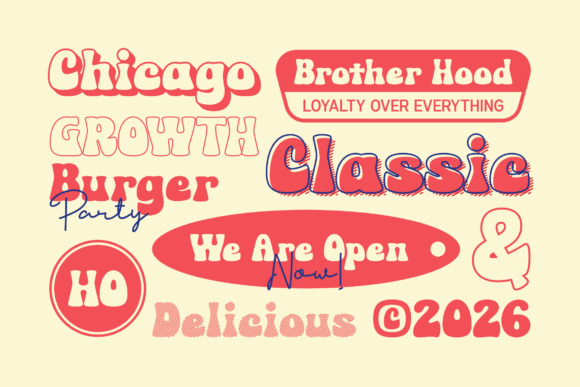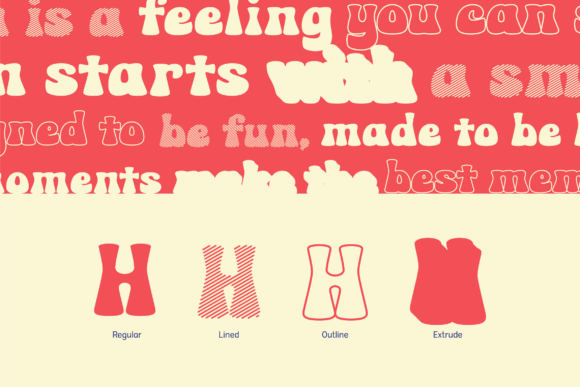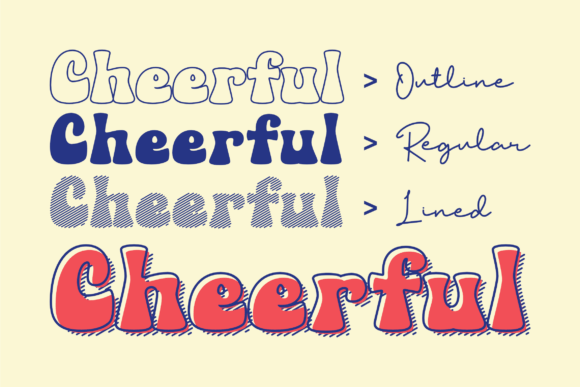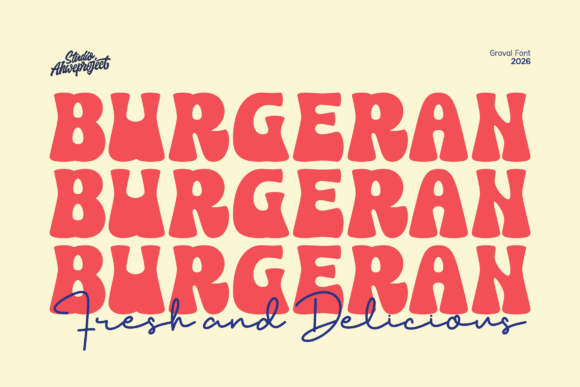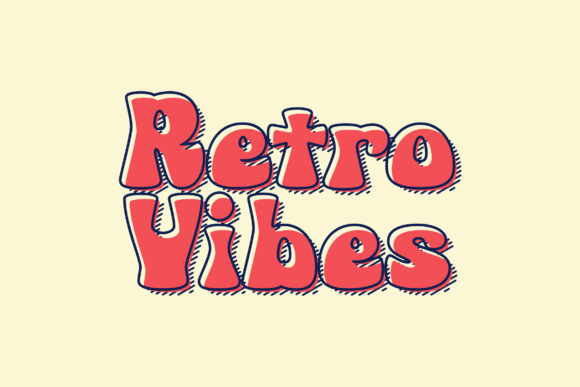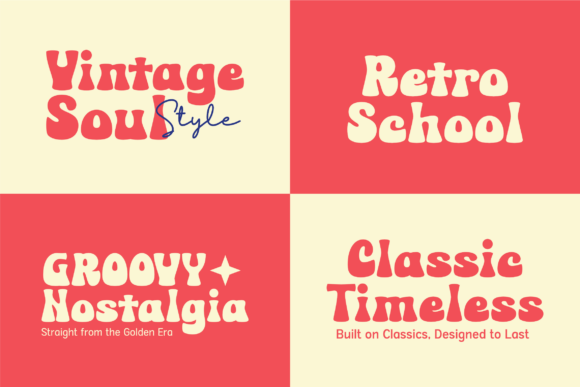
Introducing Groval Font: The Ultimate Retro Display Font for Bold Designs
Are you looking for a font that can instantly grab attention and add a fun, nostalgic vibe to your design projects? Look no further than Groval Font, a bold, playful retro display font inspired by vintage cartoons, groovy typography, and classic poster lettering. With its chunky letterforms, soft curves, and expressive character, Groval is perfect for designers and crafters who want to add personality and impact to their work.
A Font that Brings Back the Retro Vibe
Groval Font is designed to evoke the spirit of the past, with a unique blend of retro charm and modern style. Its chunky letterforms and soft curves are reminiscent of vintage posters, while its expressive character and bold lines make it perfect for designs that need a strong visual presence. Whether you’re working on logos, packaging, posters, stickers, social media graphics, or branding projects, Groval Font is the perfect choice for adding a touch of nostalgia and fun to your designs.
Multiple Styles for Endless Design Possibilities
One of the standout features of Groval Font is its versatility. The font comes with multiple styles, including Regular, Extrude, Lined, and Outline, giving you the flexibility to create depth, dimension, and eye-catching compositions effortlessly. With these styles, you can mix and match to create bold headlines, playful titles, or groovy typography layouts without extra design work. This means you can experiment with different looks and feels, trying out new and exciting design concepts with ease.
Groval Font is built to make your designs stand out and stay in people’s minds. Its fun, confident, and memorable style makes it perfect for designers and crafters who want to create bold, eye-catching designs that leave a lasting impression. Whether you’re working on a personal project or a client’s brief, Groval Font is the perfect choice for adding a touch of personality and style to your work.
Key Features of Groval Font
- Bold and Playful Style: Groval Font has a bold, playful style that’s perfect for designs that need personality and impact.
- Retro-Inspired: Inspired by vintage cartoons, groovy typography, and classic poster lettering, Groval Font brings a fun, nostalgic vibe to any design project.
- Multiple Styles: Comes with multiple styles, including Regular, Extrude, Lined, and Outline, giving you flexibility to create depth, dimension, and eye-catching compositions.
- Perfect for a Variety of Projects: Suitable for logos, packaging, posters, stickers, social media graphics, branding projects, and more.
- Experiment with Different Styles: Try out different styles, such as Regular, Extrude, Lined, and Outline, to create unique and eye-catching designs.
- Mix and Match: Mix and match different styles to create bold headlines, playful titles, or groovy typography layouts.
| Font Name | Groval Font |
| Author | ahweproject |
Groval Font is a bold, playful retro display font that’s perfect for designers and crafters who want to add personality and impact to their work. With its chunky letterforms, soft curves, and expressive character, Groval Font brings a fun, nostalgic vibe to any design project. Its multiple styles and ease of use make it a versatile and practical choice for a variety of projects. Whether you’re working on logos, packaging, posters, stickers, social media graphics, or branding projects, Groval Font is the perfect choice for creating bold, eye-catching designs that leave a lasting impression.